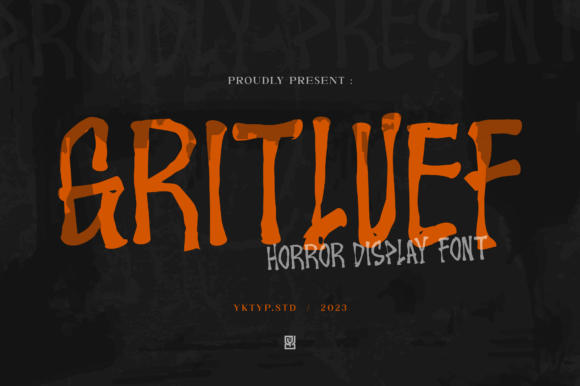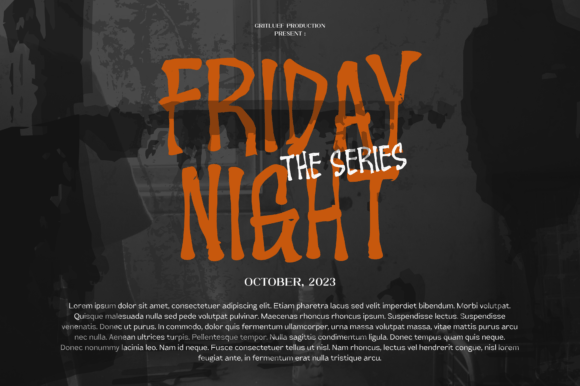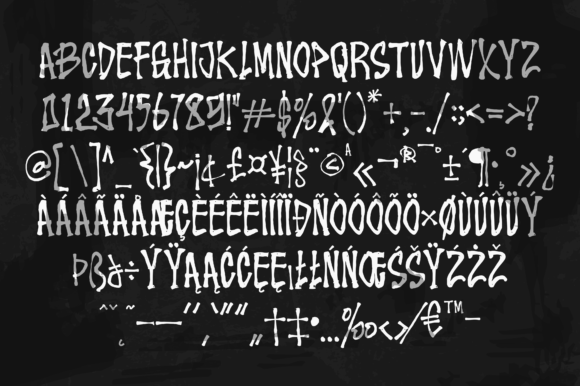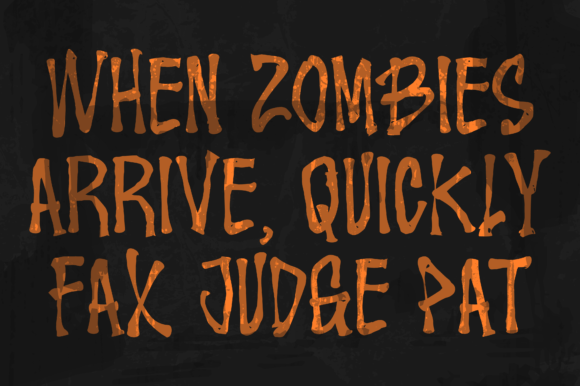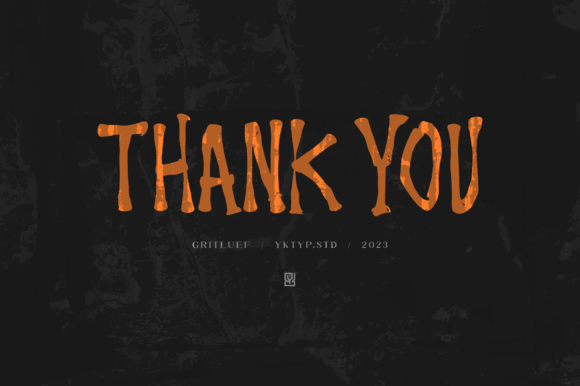
Unleash the Fear with Gritluef Font
As a designer, have you ever found yourself in the middle of a project, staring blankly at a blank canvas, searching for that one element to take your design from bland to bold? That’s when the spark of creativity hits – a spark that can either ignite a masterpiece or leave you in the dark. For those moments of uncertainty, we’ve got just the thing: Gritluef Font, the horror display font that will give your designs a spine-chilling makeover.
This eerie yet captivating font is the perfect choice to add an extra dose of fright to your spooky posters, Halloween invitations, and creepy projects. With its unique, blood-curdling style, Gritluef Font is a valuable asset for designers looking to push the boundaries of their creativity and create truly unforgettable designs. Whether you’re a seasoned pro or a beginner, this font is sure to unleash your inner horror aficionado and leave your audience screaming for more.
- Unique Characteristics: Gritluef Font features a distressed, vintage aesthetic with rough textures and subtle imperfections, ideal for creating a nostalgic or retro look in designs
Gritluef Font Review
Overall, I think Gritluef Font is a great addition to any designer’s toolkit. ✨ Its unique blend of grunge and modern elements makes it perfect for projects that need a bit of edge. The font is highly customizable, allowing users to adjust the thickness, spacing, and texture to suit their needs. ✨
- Unique blend of grunge and modern elements
- Perfect for projects that need a bit of edge
- Good for use in logos, headings, and titles
However, there are a few limitations to consider. ⚠️ The font can be quite thick, which may make it difficult to read in certain situations. Additionally, the texture can be a bit overbearing at times, which may detract from the overall design. ⚠️
- Can be too thick in certain situations
- Texture can be overbearing at times
- May not be suitable for all types of projects
Overall, I would recommend Gritluef Font to designers who are looking for a unique and customizable font to add some edge to their projects. While it may not be perfect, it’s definitely worth considering for the right project.
To get the most out of the Gritluef Font, use it in combination with bold colors and striking graphics. The font is particularly effective when used in headings and titles, where it can add a touch of elegance and sophistication.